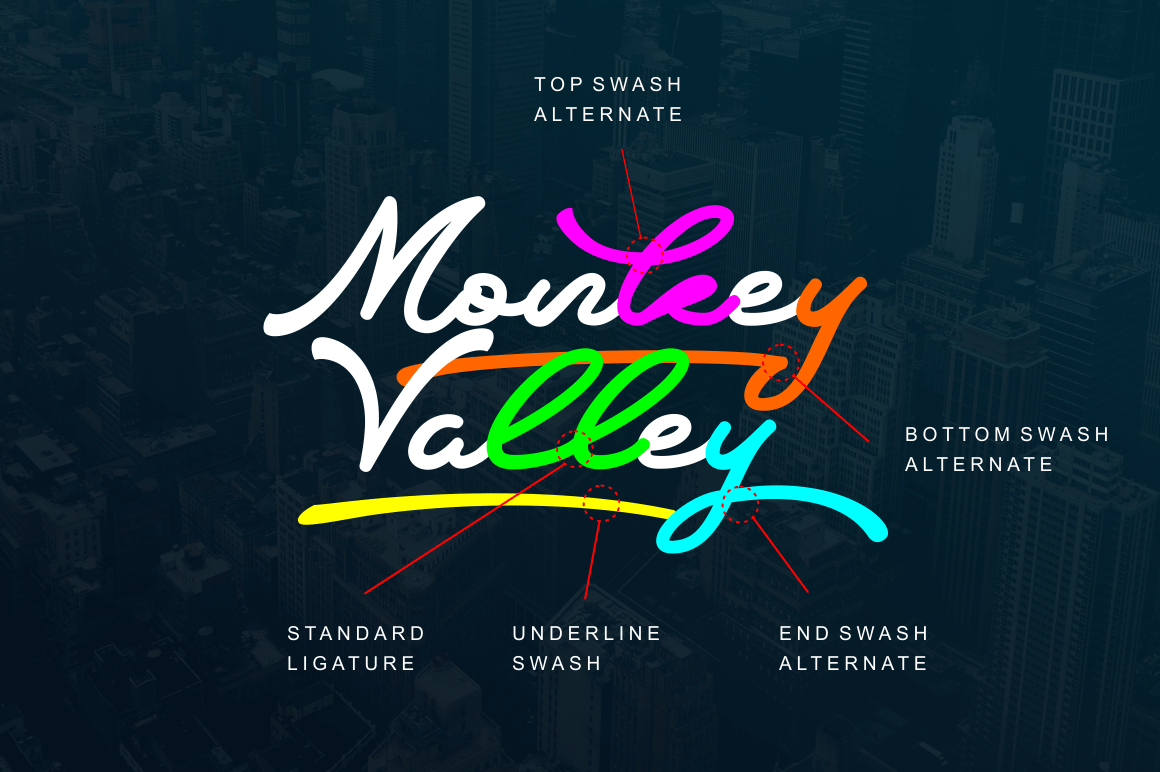
Crumble Free Font
An elegant and classy script with signature style on it. May called ‘Crumble’ but this font has been made very carefully to get the best movement flow. This font will perfect for some Display purposes like Logotype, Make some quotes, Poster, Wedding Invitation, etc. It even can work as well for your body text. You can check the preview for a better look at it and how to use the OpenType features. This free typeface was designed by talented Subqi Std. If you like it don’t forget to check out the full version.